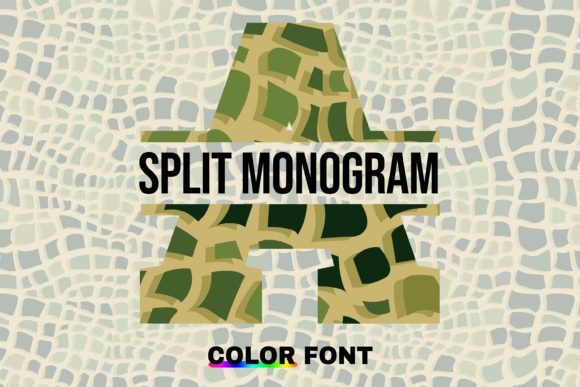
The Ultimate Guide to Alligator Split Font: A Fun and Creative Addition to Your Design Toolbox
I’ll never forget the time I was working on a project for a client’s birthday party invitations. I had a clear vision of what I wanted to create – fun, playful, and kid-friendly – but I was struggling to find the perfect font to match. That’s when I stumbled upon the Alligator Split font, and it completely transformed my design. In this article, I’ll share my experience with this amazing font, its features, and how to make the most of it in your designs.
An Honest Review of Alligator Split Font
What I Love About Alligator Split Font ✨
- 🎉 Cute and playful design: The Alligator Split font is an incredibly cool font containing cute alligator things that add a lovely touch to any design.
- ✅ Versatility: Whether you’re working on custom designs, DIY crafts, or just any creation that requires a fun and playful element, this font is an amazing choice.
- 🤩 Compatibility: This product is a color font (Opentype-SVG) and is compatible with popular design software like PhotoShop, Illustrator, Silhouette, and Inkscape.
While the Alligator Split font is an amazing addition to any design toolbox, there are a few things to keep in mind:
The Backstory Behind Alligator Split Font
The Alligator Split font was designed by a creative team that’s passionate about bringing fun and playful designs to the world. Inspired by the whimsical world of alligators, this font is perfect for designers and crafters who want to add a touch of personality to their projects.
Q: What is the Alligator Split font?
A: The Alligator Split font is a color font (Opentype-SVG) that contains cute alligator designs, perfect for custom designs, DIY crafts, and more.